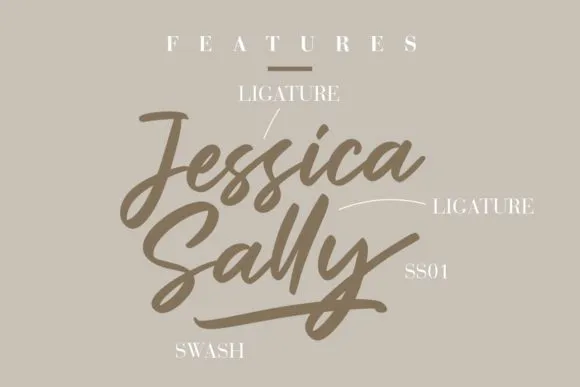
Elisabeth Font is a cursive brushed script text style with a contemporary environment and flawless structure, propelled by immortal exemplary calligraphy. Not excessively slim and not excessively thick, adjusted and differed, this text style was intended to upgrade the magnificence of your ventures.
Elisabeth Font is PUA encoded which implies you can get to the glyphs as a whole and swashes effortlessly!